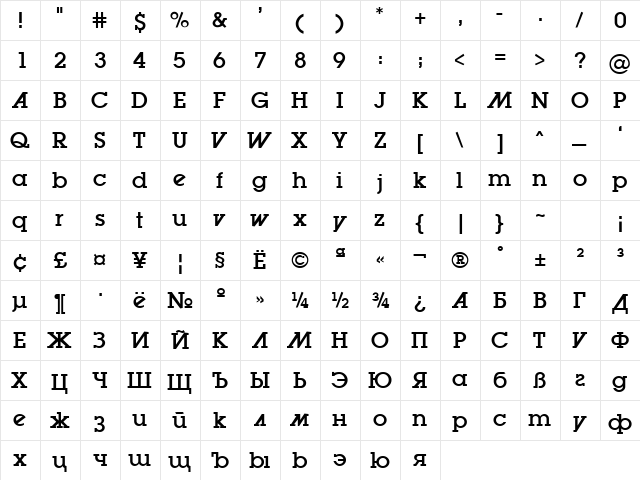
LugaAd Normal
Design Context for LugaAd Typeface
LugaAd takes a measured approach to typography — its balanced proportions and neutral character make it a reliable workhorse for both digital and print work.